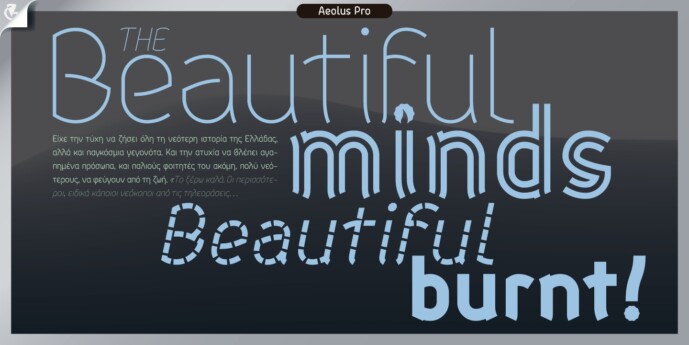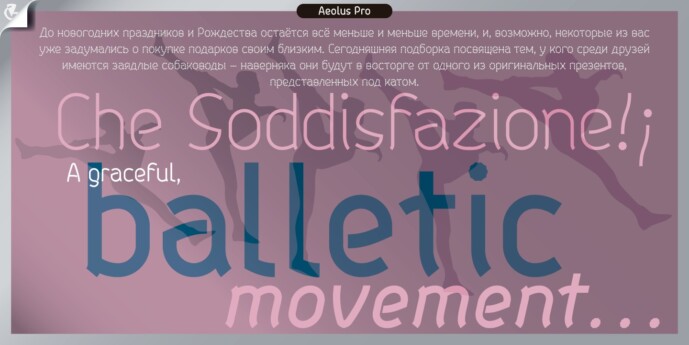
Aeolus Pro Font Family
Designer: DBSV
Aeolus Pro Font Family is a second attempt at writing a monoline style. Completed after many design transformations. And here (as in KhamaiPro) attempted to provide a different visual design with style as Staccato: (dashed line) Rail: (double line) Tribe: (triple line) and finally a New style Shadow. Also (Bold, BoldItalic) has the advantage of involving between styles… (Rail, RailItalic, Tribe, TribeItalic, Shadow and ShadowItalic) for example: …you have a text frame with some text or one word or one letter with Bold or BoldItalic style with e.g. (color blue), if you duplicate the text frame or duplicate the Layer (as is, without shifting position – text) and you make changes ONLY (the Style* and color of text) in second text frame, would have the effect of filling the gap at the following styles… *(Rail, RailItalic, Tribe, TribeItalic, Shadow and ShadowItalic) you can see the presentation of the photo “Multiplex”. This series of 20 fonts with 624 glyphs each is composed and includes true italics and supports Latin, Greek and Cyrillic.